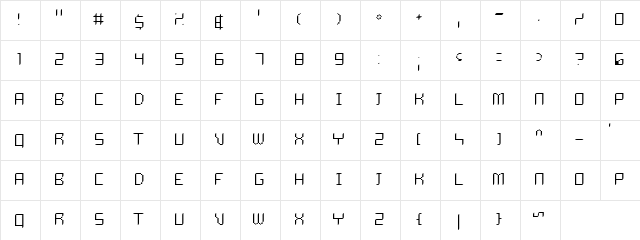
Dalila Light Regular
Complete Dalila Light Regular glyph index. Displaying only characters natively supported by Dalila Light Regular font.
Design Context for Dalila Light
Dalila Light is a composed and adaptable typeface that performs quietly and consistently across a wide range of design contexts. Its slender proportions lend an understated elegance to any composition.